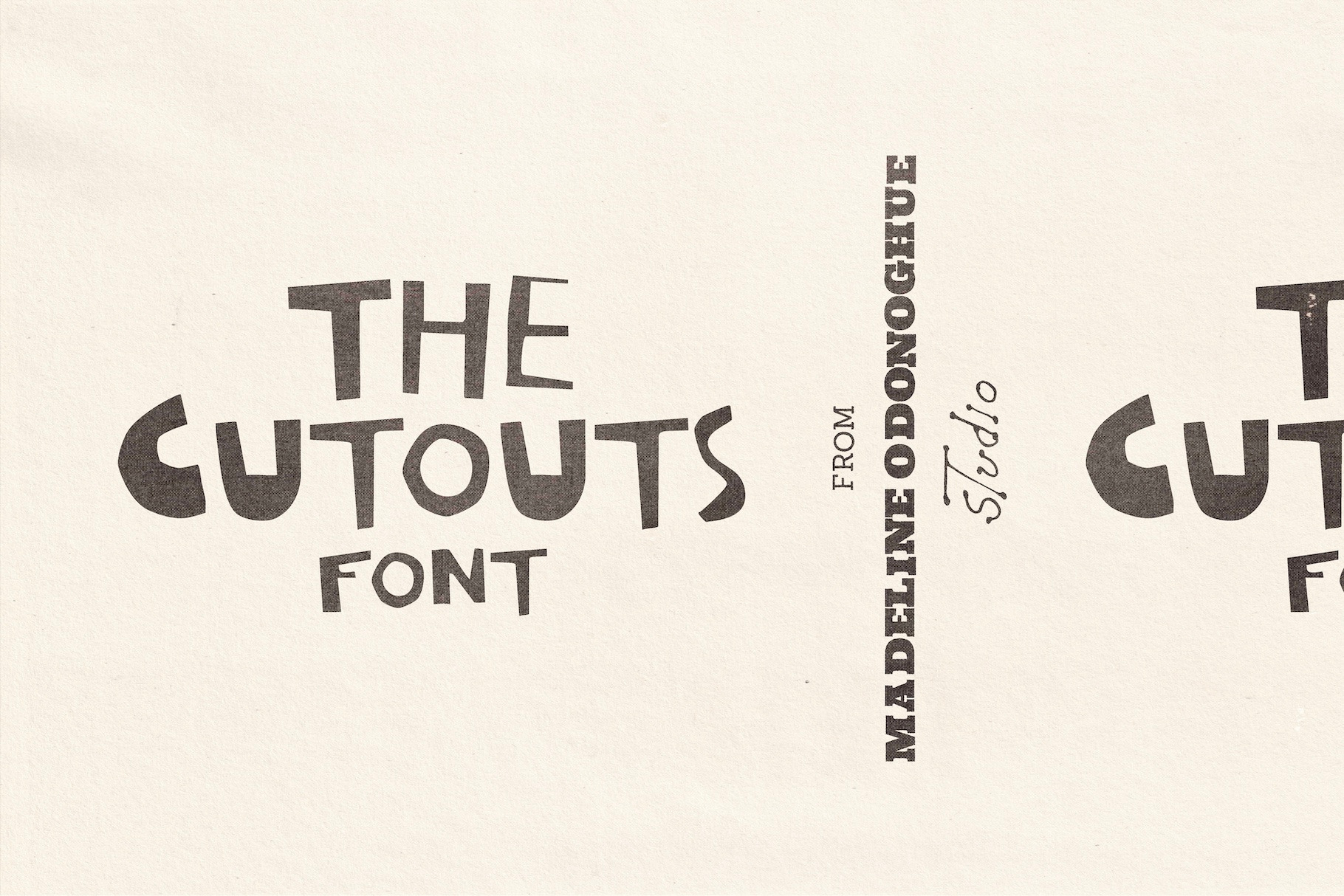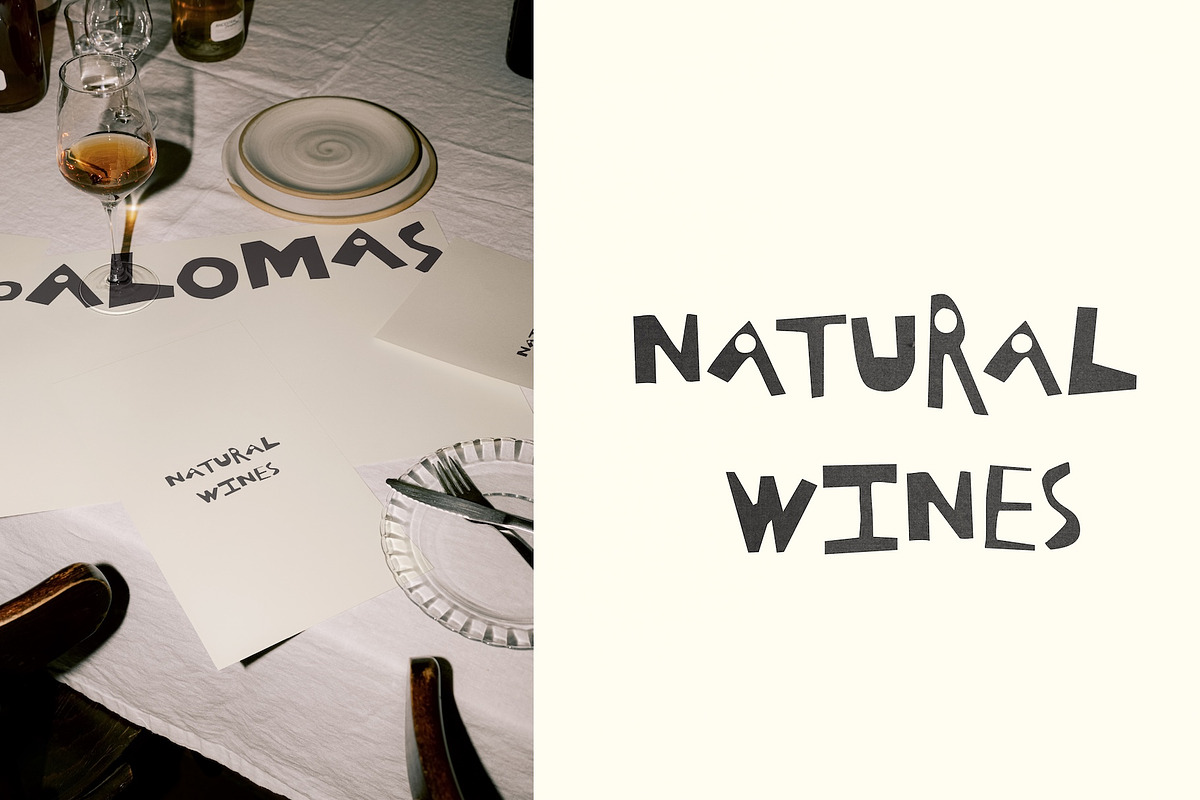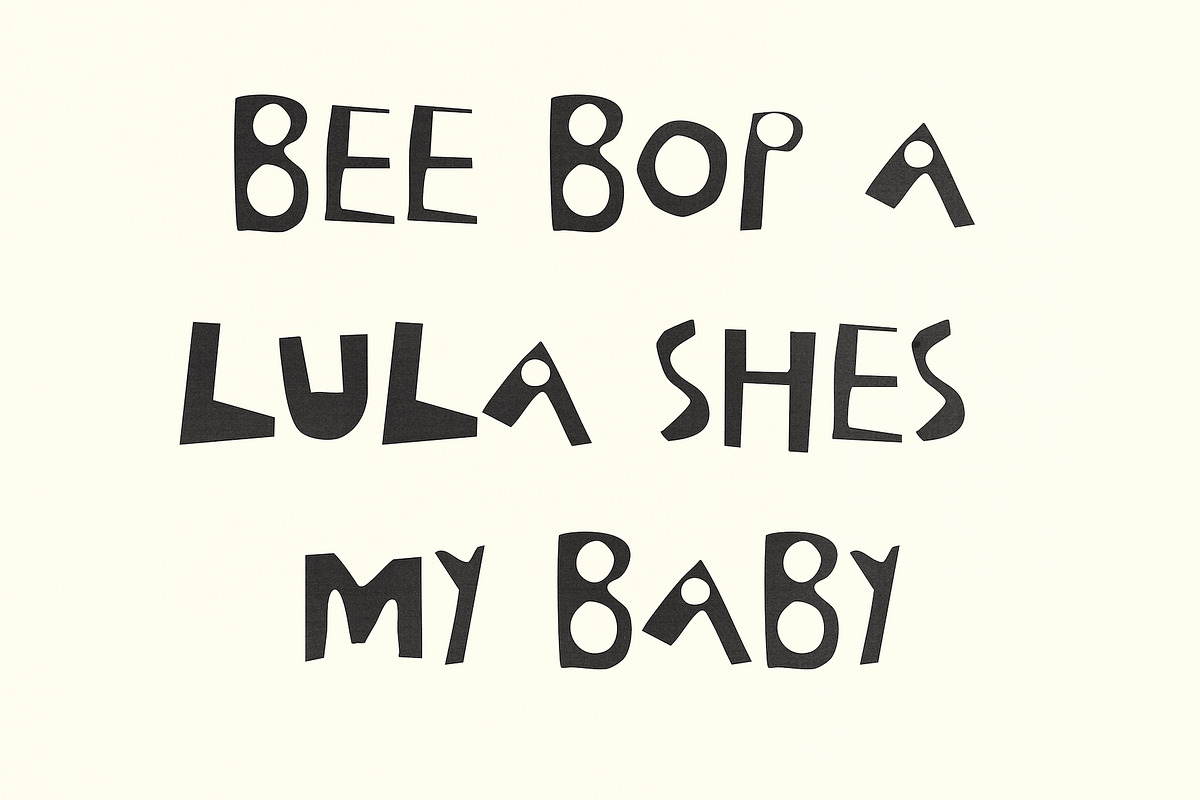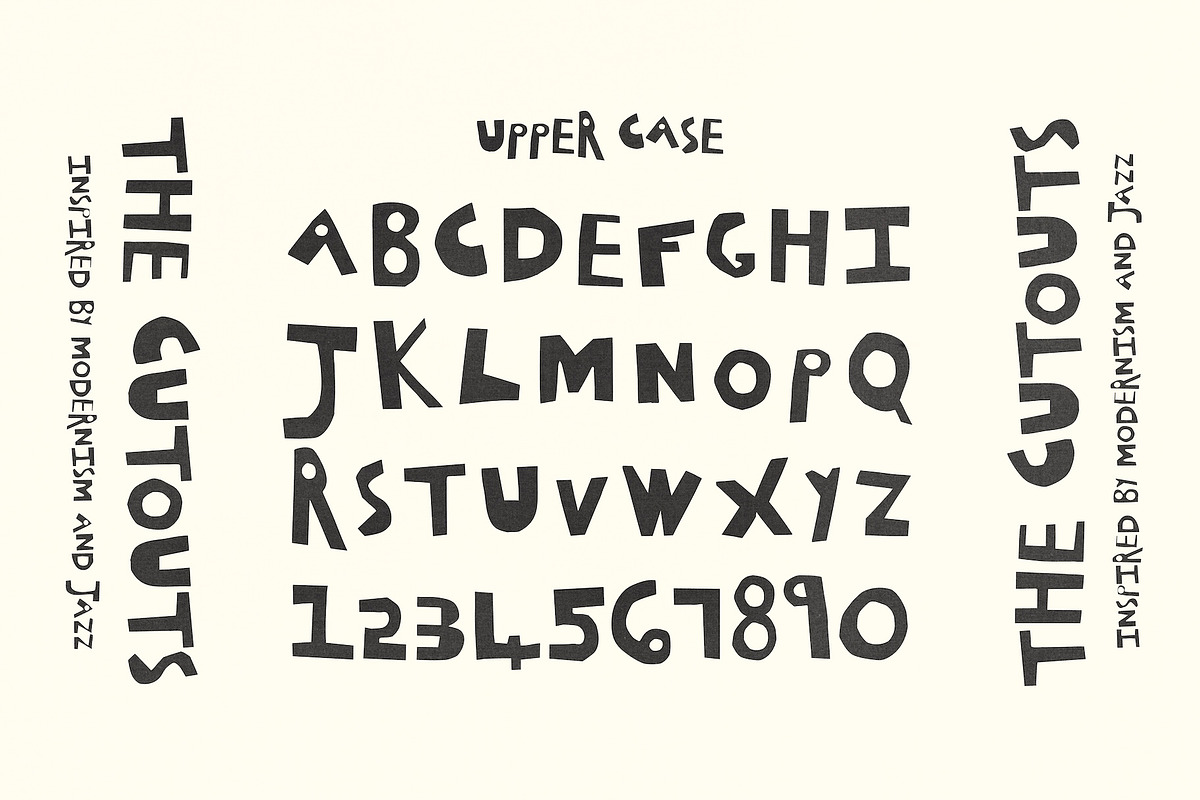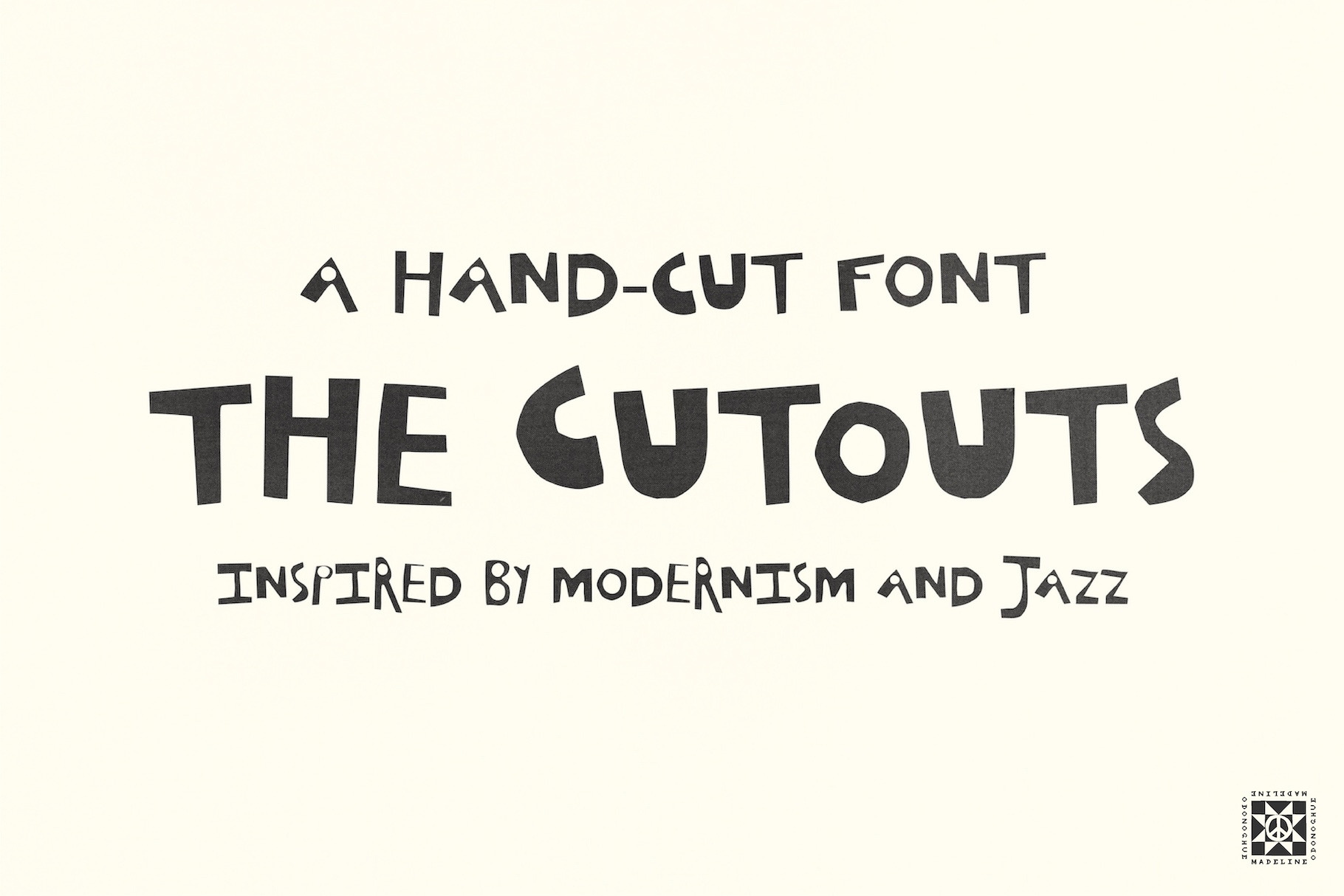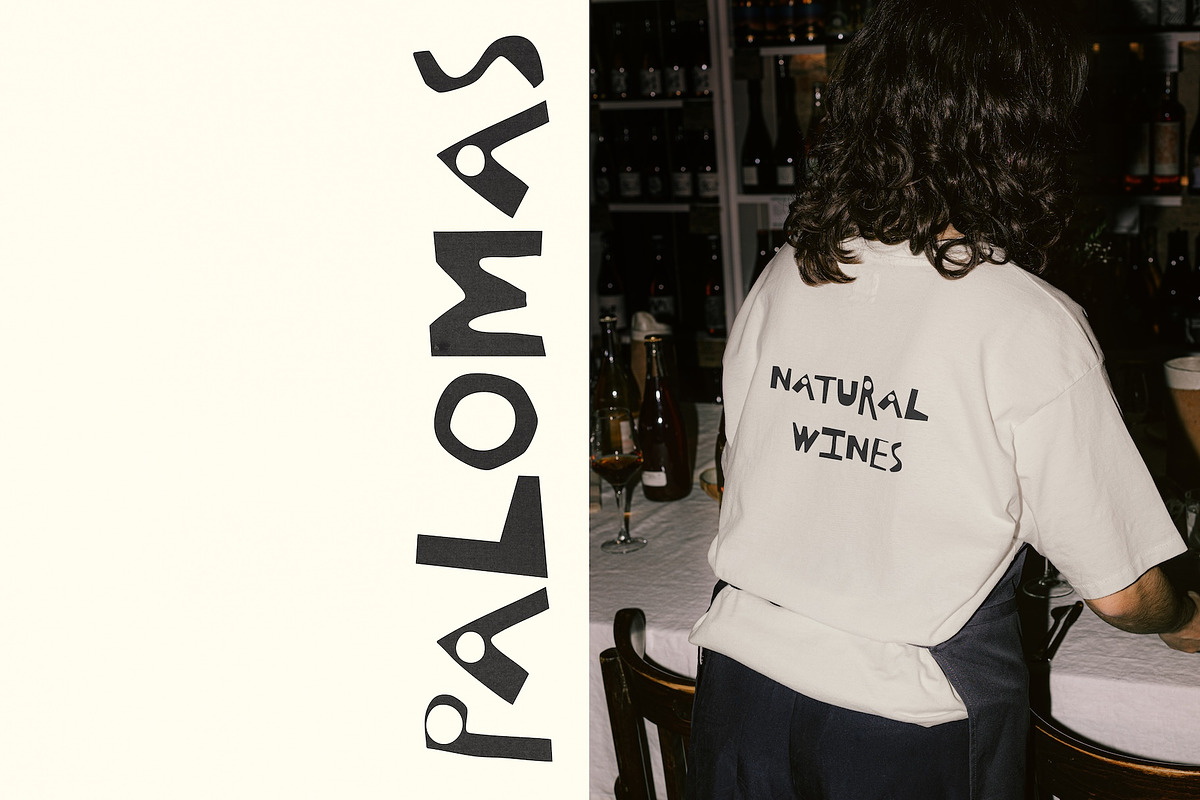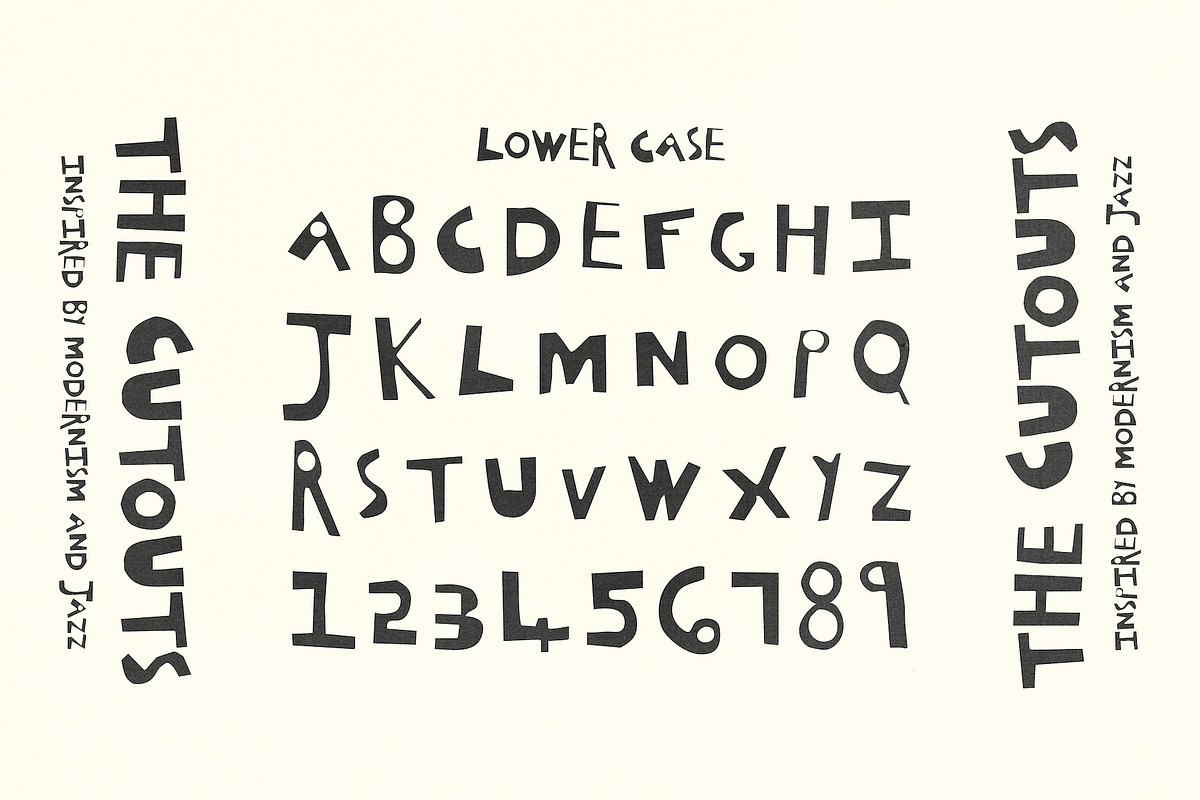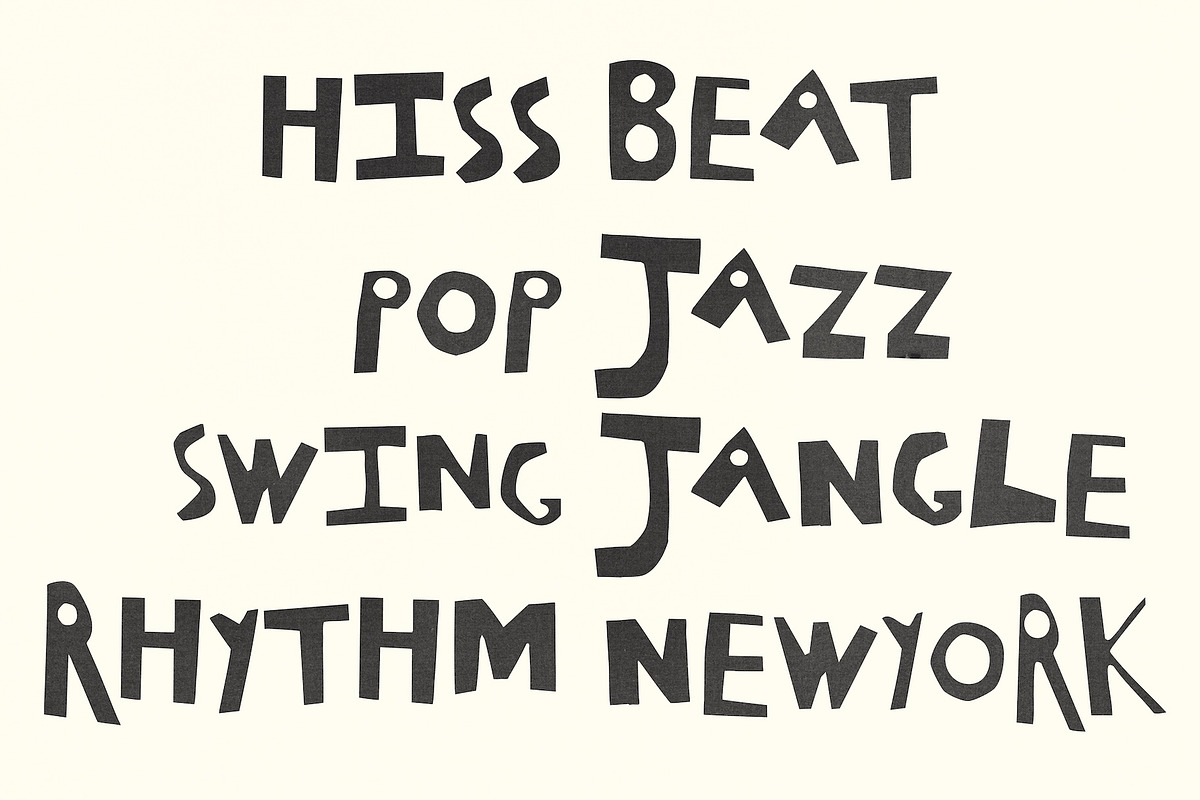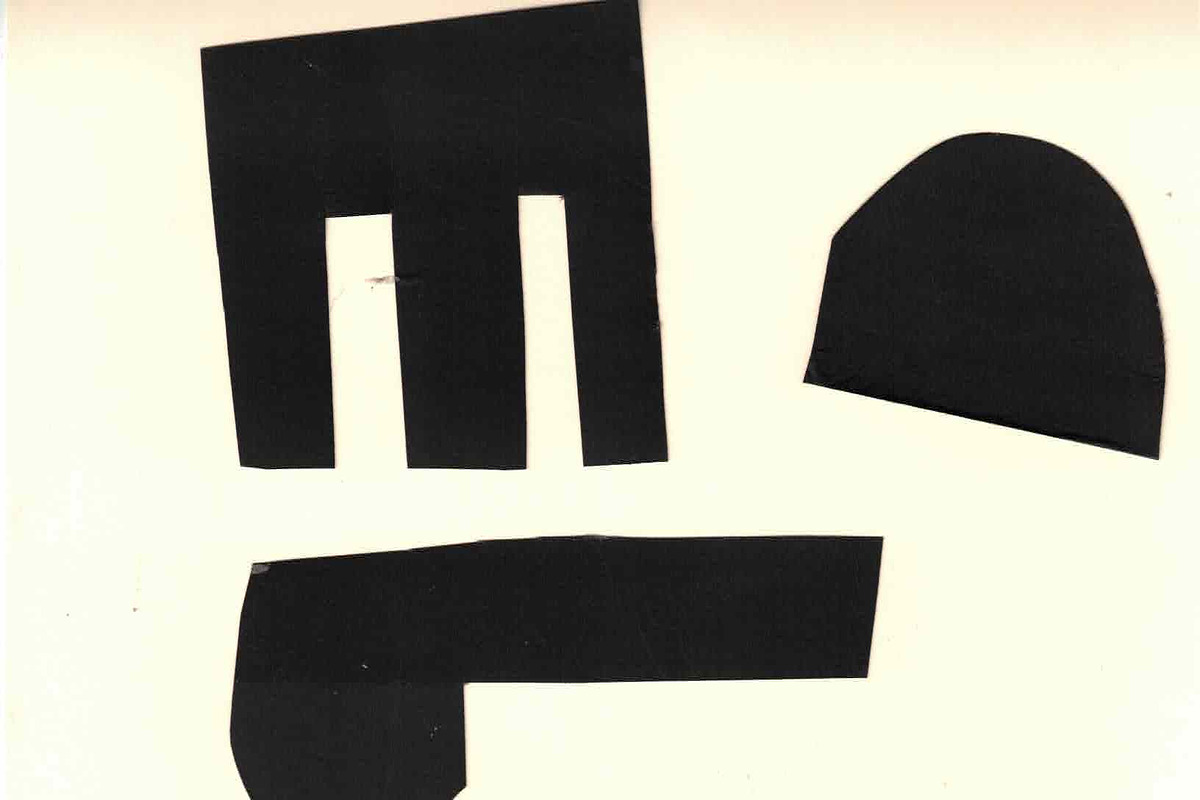
The Cutouts - Collage Display Font
Bring bold, handmade energy to your next project with The Cutouts — a playful, all-caps display font crafted entirely by hand with scissors. Inspired by Matisse’s cut-outs, vintage jazz posters, and DIY print techniques, this font embraces raw edges, visual rhythm, and analogue charm.
Each uppercase letter was hand-cut for an authentic, imperfect look. For more design flexibility, the font also includes a lowercase set that features a thinner, lighter version of the uppercase letters — giving you contrast and layering options within the same style. These aren’t traditional lowercase forms, but a second cut of the same set made in a finer weight for visual variation.
Posters & flyers
Album art
Editorial layouts
Art books
Creative brand identities
Zines & printed matter
Digital collage & graphic experimentation
Use it as-is, or deconstruct and rearrange the letterforms like a collage artist — The Cutouts font invites you to create with spontaneity, texture, and handmade spirit.
A–Z hand-cut uppercase letters (with some alternates)
A–Z thinner version of the uppercase set, mapped to lowercase
Basic punctuation